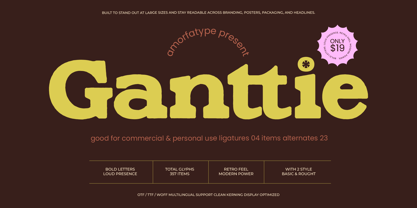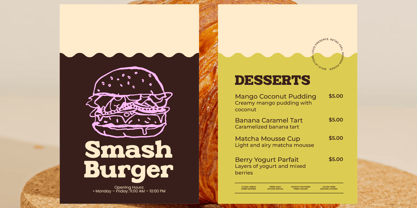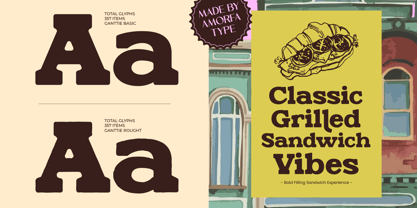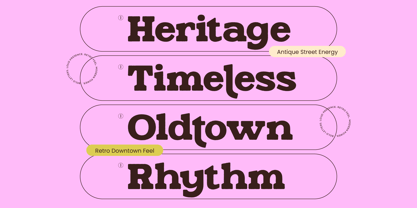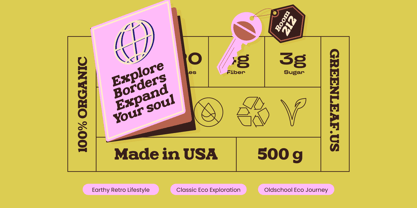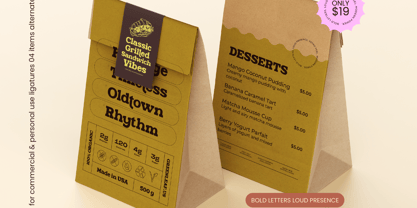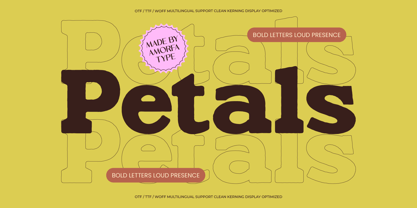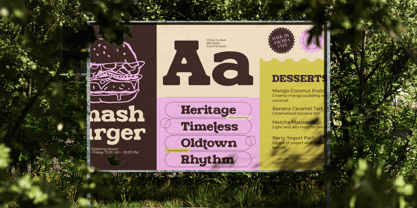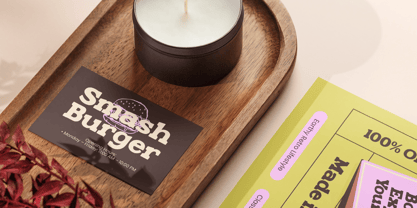
Ganttie Rought
by Amorfa Type
The Ganttie Rought Font Family was designed by Shiddiq Roihan and published by Amorfa Type. Ganttie Rought contains 4 styles and family package options. More about this family
Ganttie is a bold display serif font built with strong character, confident weight, and expressive details. Designed to make an impact, Ganttie blends classic serif structure with a modern, slightly rugged attitude, making it ideal for branding, posters, packaging, editorial headlines, menus, and statement-driven designs. Featuring two styles — Basic and Rough, Ganttie allows you to shift the mood of your design effortlessly. The Basic style delivers a clean, solid serif presence, while the Rough style adds texture and organic imperfection for a more raw, handcrafted feel. This combination makes Ganttie especially powerful for vintage-inspired visuals, food branding, retro concepts, and bold creative projects